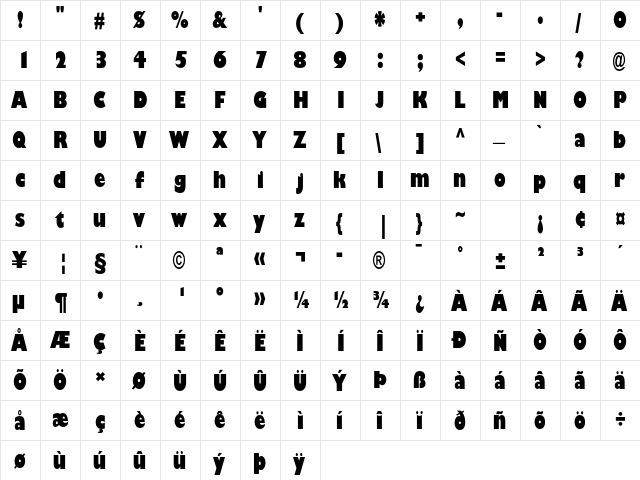
Gill Sans Std Ultra Bold Condensed
| Designer | Eric Gill |
Design Context for Gill Sans Std Typeface
Gill Sans Std is a composed and adaptable typeface that performs quietly and consistently across a wide range of design contexts. Its bold stroke weight gives it real presence on the page. The condensed width makes it efficient for tight spaces without sacrificing legibility.